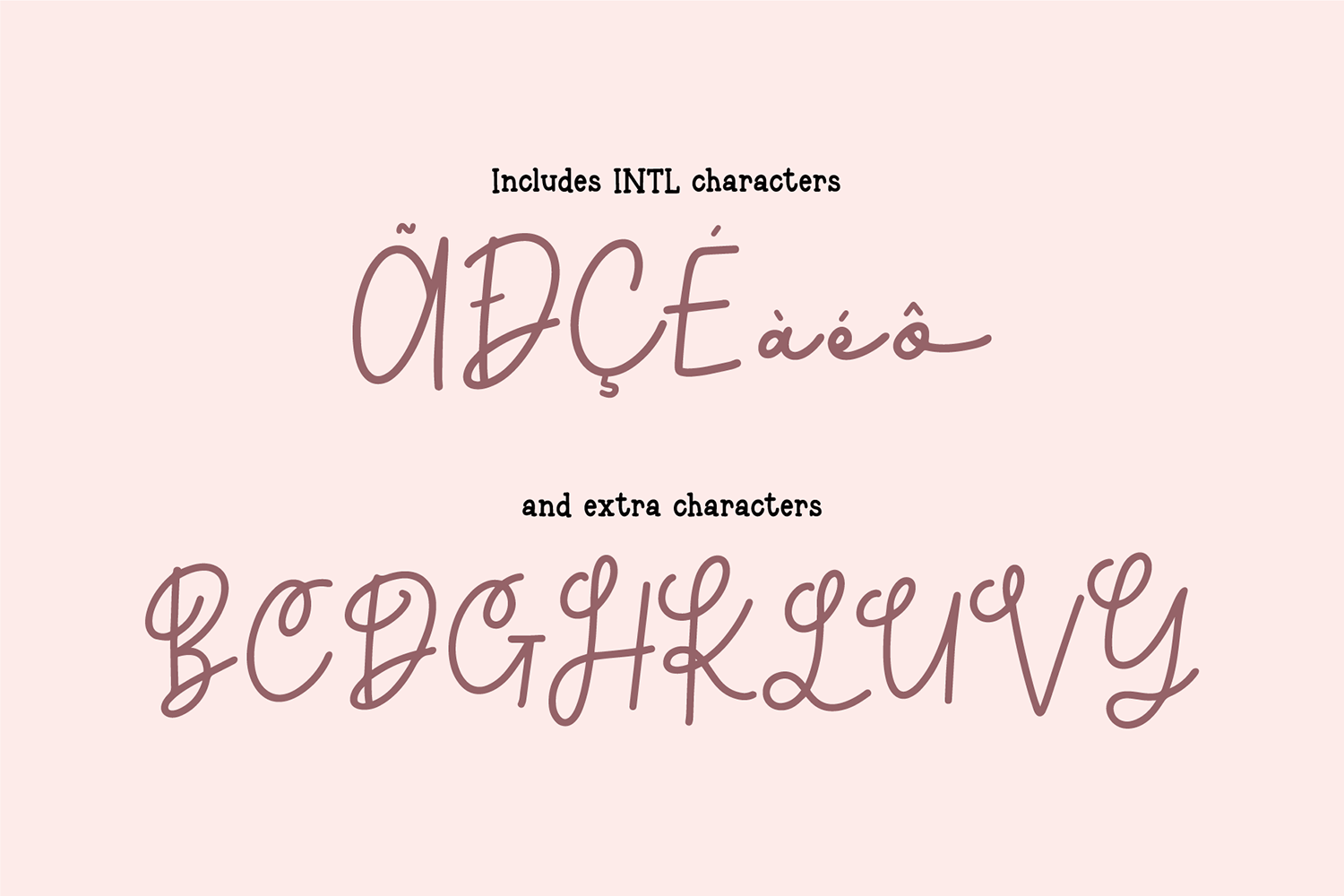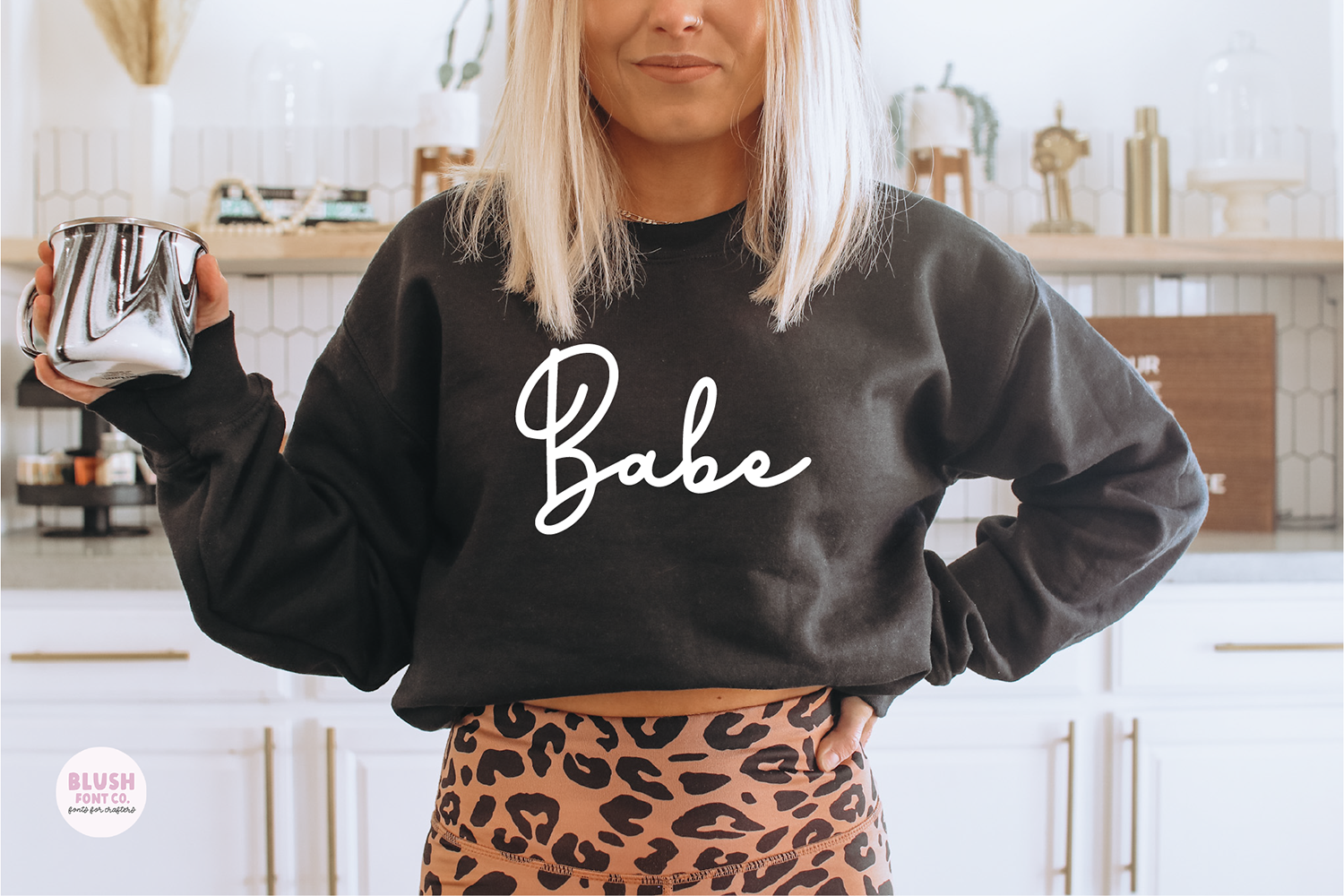
"Hello Darling" Signature Script Font
Font includes: Upper and lowercase glyphs, numbers, basic punctuation, international characters, and some extra stylized capital letters you can find in your glyph panel.